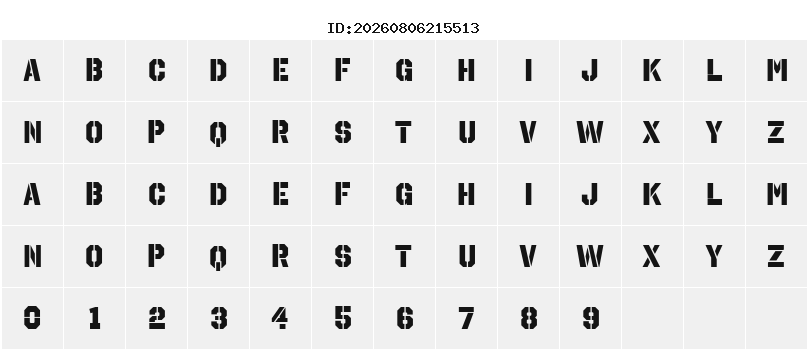
Octin Stencil Hv Preview
• Font Name: Octin Stencil Hv
• Font ID: RayLarabie: Octin Stencil Hv: 2007
• Full Font Name: Octin Stencil Hv
• PostScript Name: OctinStencilHv
• Designer: Ray Larabie
• Manufacturer: Ray Larabie
About Octin Stencil Hv.ttf
Octin Stencil Hv.ttf is a modern, elegant sans-serif font designed for ultimate readability and visual harmony. Perfect for branding, headlines, web design, and print materials.